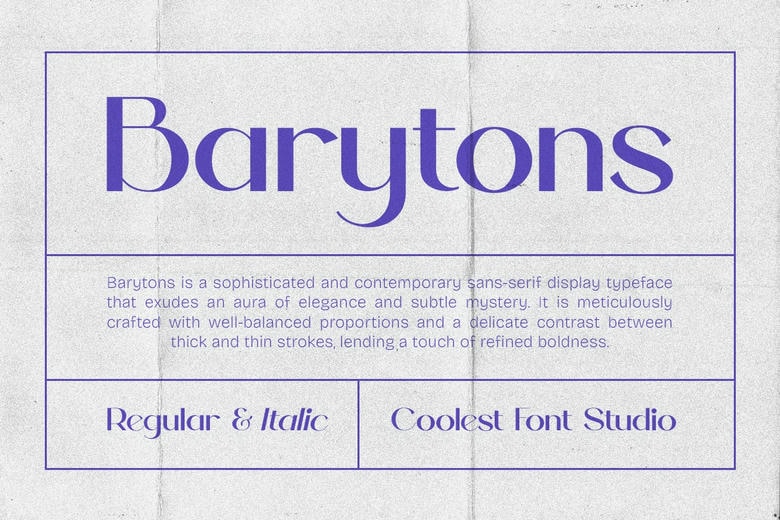
Barytons Font
Barytons is a clean and modern sans serif font designed to bring simplicity and elegance to your creative work. With its sleek, geometric letterforms, Barytons is a perfect fit for branding, editorial design, logo work, web headers, and more.
This typeface comes in two versatile styles – Regular and Italic – giving you the flexibility to create strong typographic contrast while keeping your designs consistent and professional.
Barytons Sans Serif Font